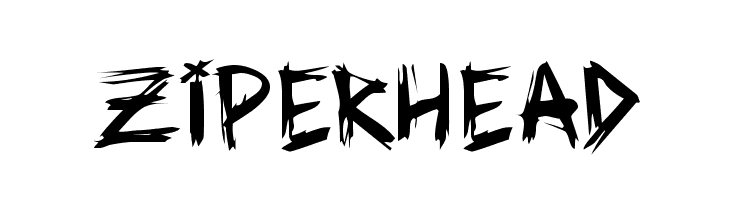
( Fonts by or from www.graffitifonts.net )
A bold, graffiti-inspired font with sharp angles and a dynamic, hand-drawn style.
( Fonts by Jacob Fisher - www.pizzadude.dk )
A bold, edgy font with a hand-drawn, graffiti-like appearance.
( Fonts by Jacob Fisher - www.pizzadude.dk )
A bold, graffiti-inspired font with dynamic, flowing strokes and an urban aesthetic.
( Fonts by www.norfok.com - Norfok® Incredible Font Design - Thomas W. Otto )
A bold, hand-drawn font with a rugged, graffiti-inspired style.
( Fonts by SDFonts - Ritzy )
A playful, graffiti-inspired font with bold, irregular strokes and a hand-drawn look.
( Fonts by Phillip Cavette )
A bold, angular font with a graffiti-inspired, modern style.